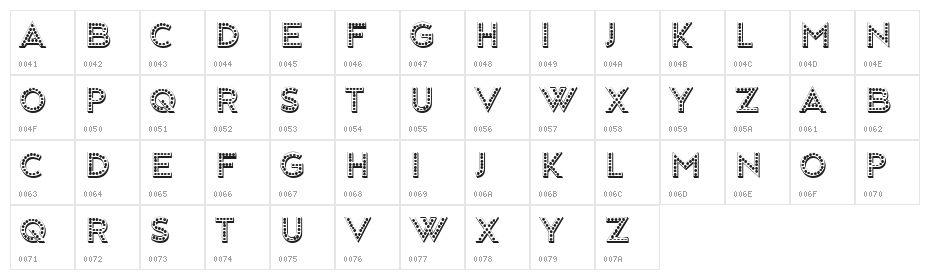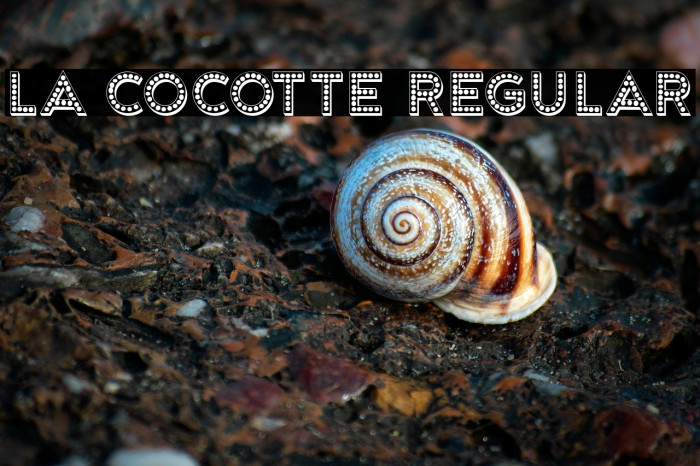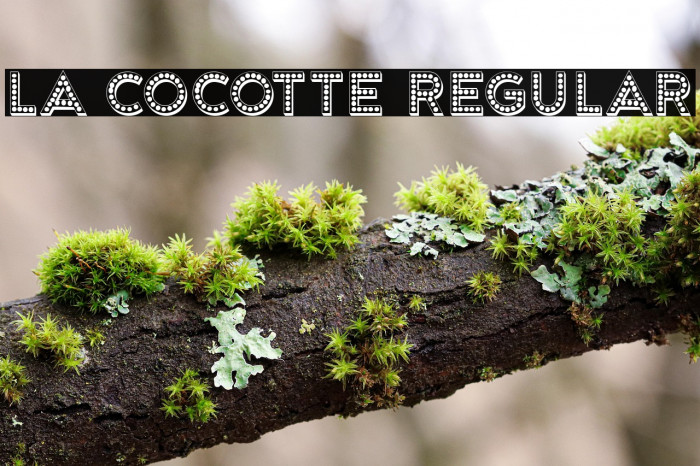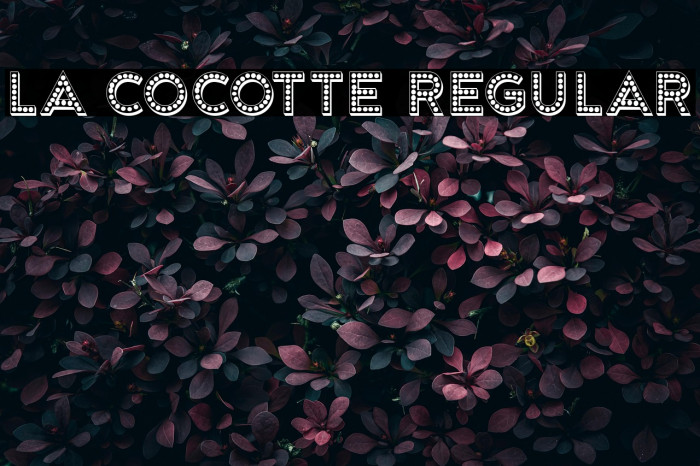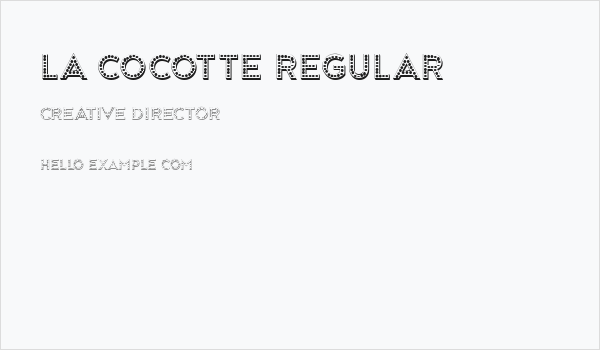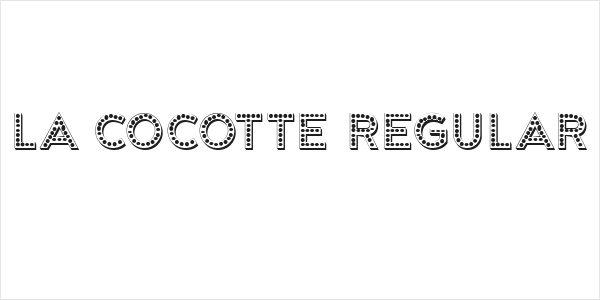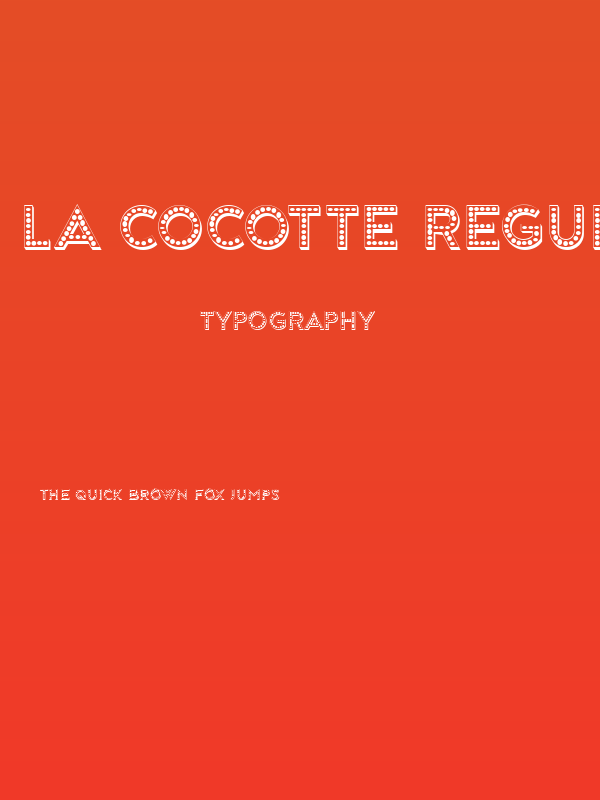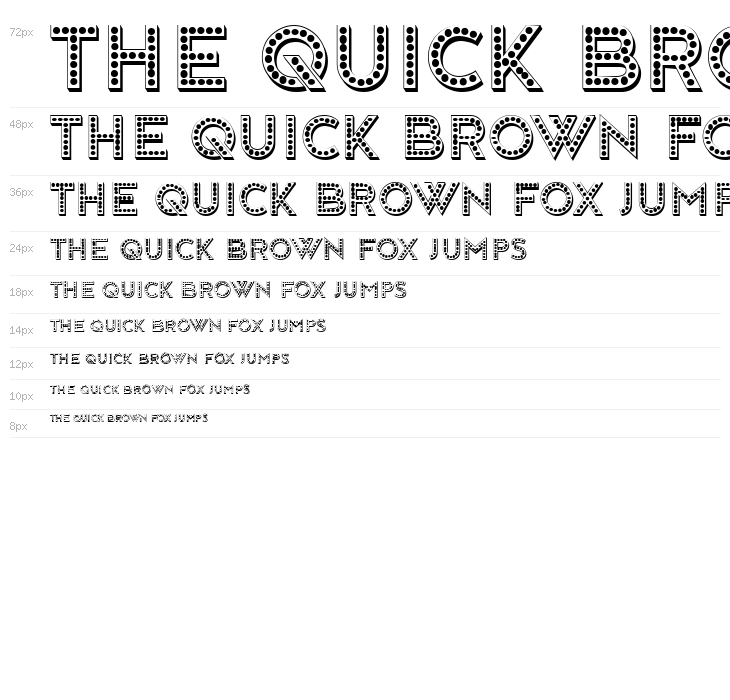
La Cocotte Regular Font
La Cocotte Regular Description
This font features a bold and decorative style with a unique dotted pattern filling the interior of each character. The uppercase letters are designed with a geometric precision, offering a modern and eye-catching appearance. The dotted pattern adds a playful and dynamic element, making it ideal for creative and artistic projects. The font maintains a consistent stroke width, providing a balanced and uniform look across all characters. Its distinct style makes it suitable for headlines, posters, and any design that requires a standout typeface.
Use CaseHeadlines, Posters, Branding
Proposed ProjectsIdeal for use in posters, headlines, branding, and any creative design projects that require a striking and artistic typeface.